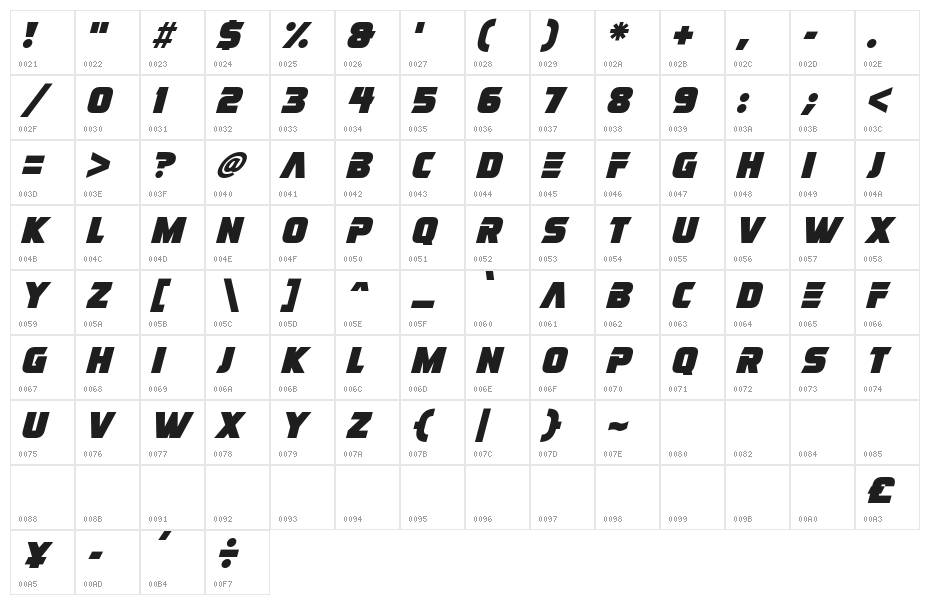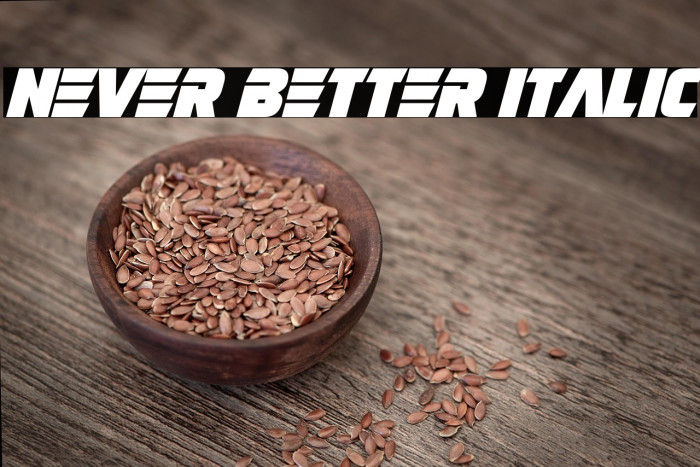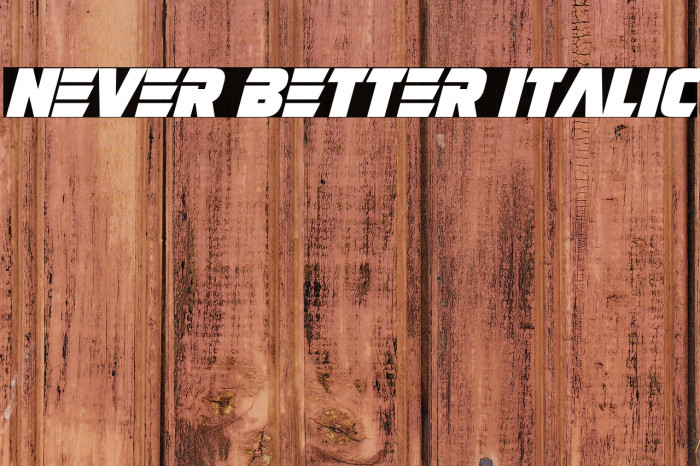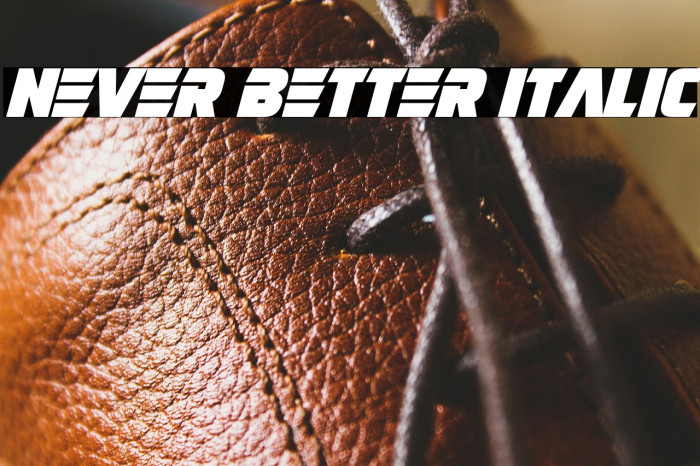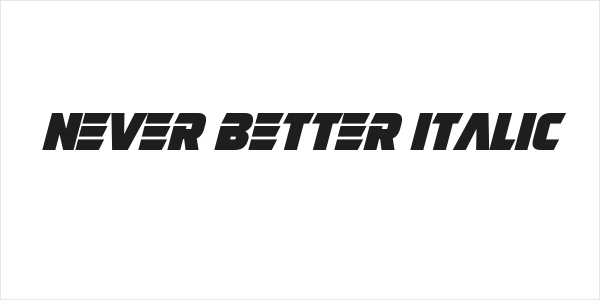
Never Better Italic Font
Never Better Italic Description
This font features a bold and dynamic style with a strong italic slant, giving it a sense of motion and energy. The characters are wide and have a distinct geometric structure, with sharp angles and clean lines. The uppercase letters are particularly striking, with a futuristic and sporty appearance. The numbers and special characters maintain the same boldness and angularity, ensuring consistency across all glyphs. This font is ideal for projects that require a modern and impactful look, such as sports branding, automotive designs, or dynamic advertising campaigns.
| Proposed Projects | Ideal for sports branding, automotive designs, and dynamic advertising campaigns. |